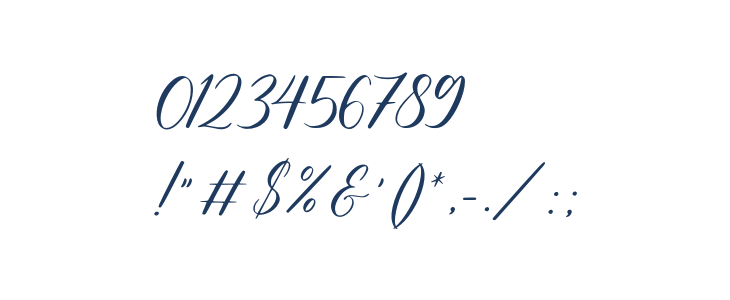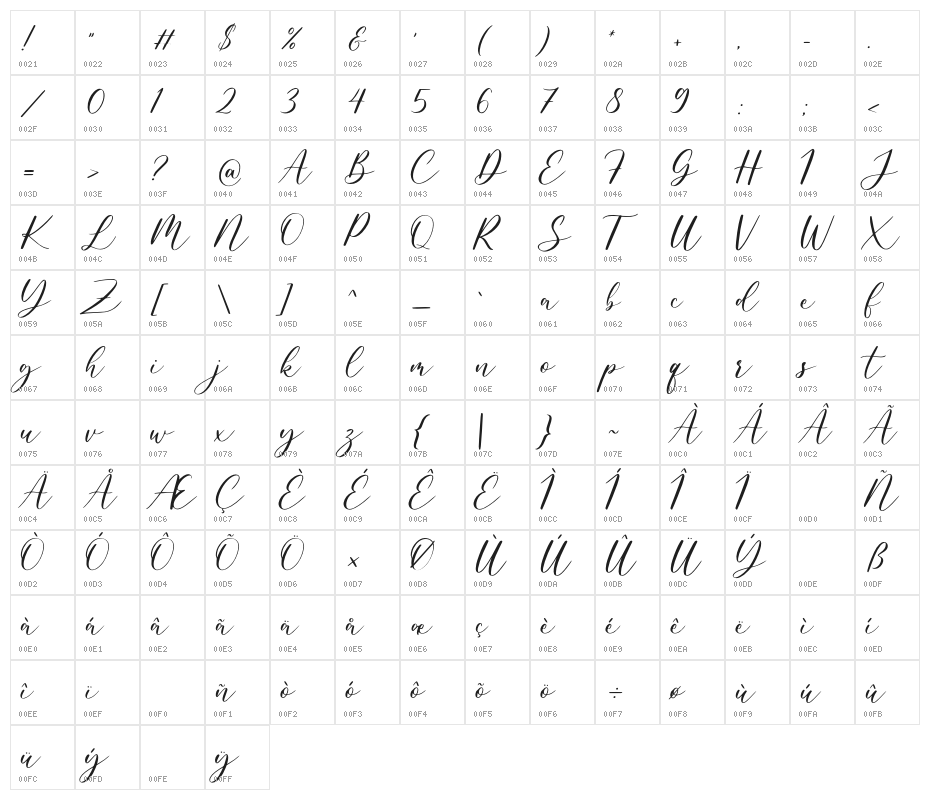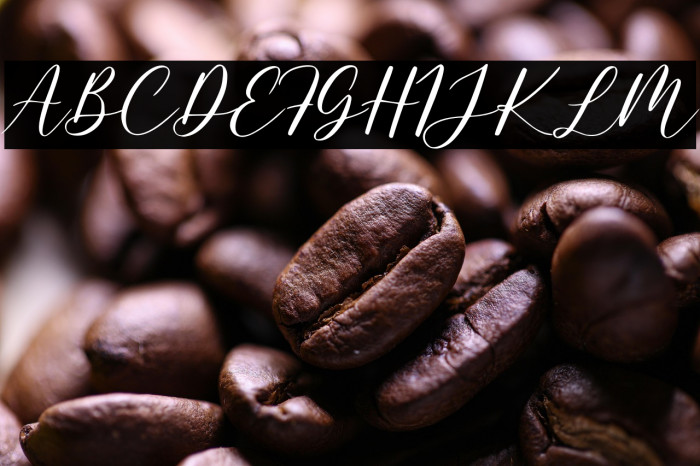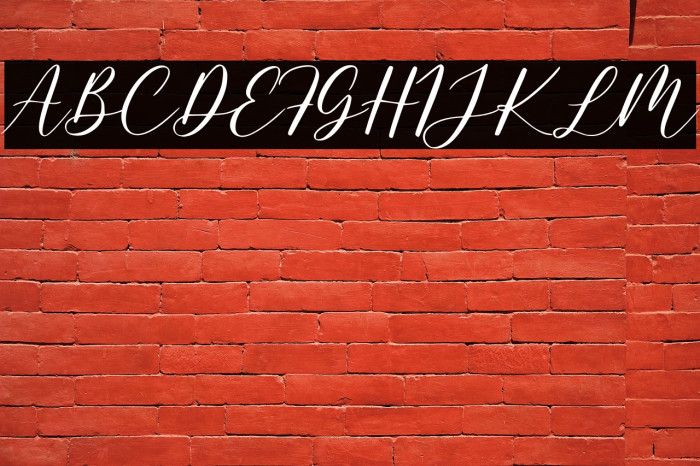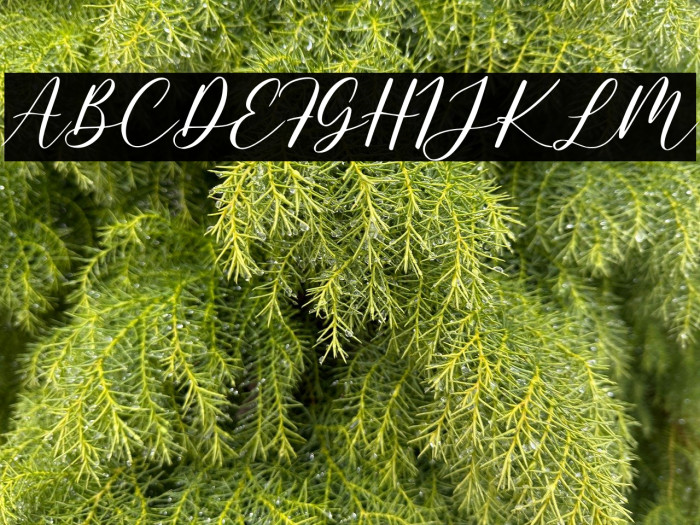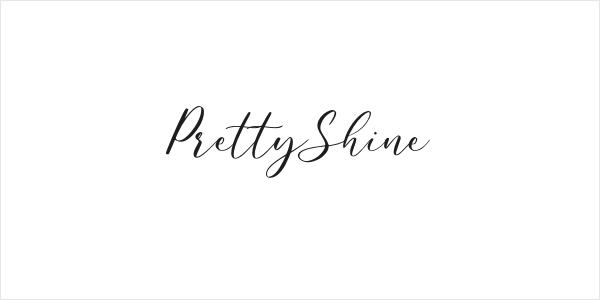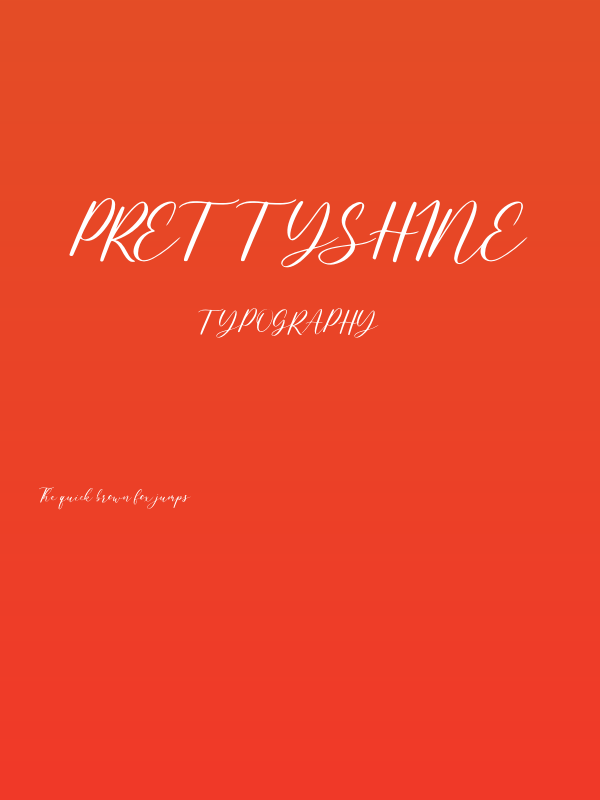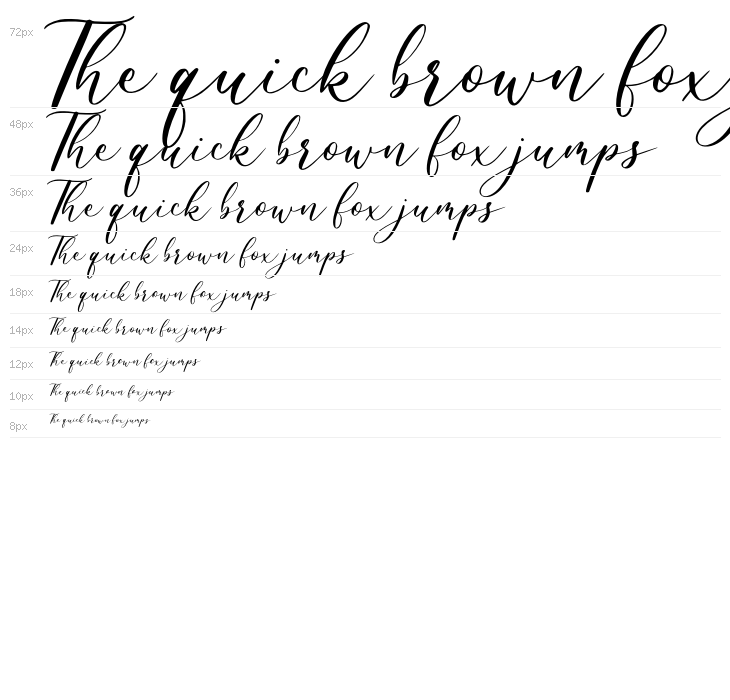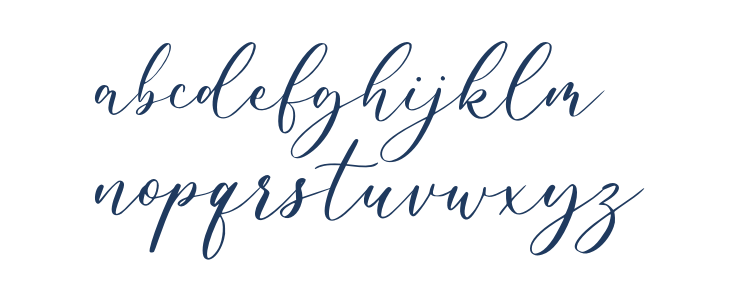
PrettyShine Font
PrettyShine Description
This elegant script font features a flowing, cursive style with smooth, connected strokes that create a sense of fluidity and grace. The uppercase letters are slightly more elaborate, with sweeping lines and delicate curves, while the lowercase letters maintain a consistent rhythm and balance. The numerals are designed to complement the letters, with similar curves and a cohesive style. The special characters are thoughtfully integrated, maintaining the overall aesthetic. This font exudes sophistication and is perfect for projects that require a touch of elegance and refinement.
| Overall Style | Elegant |
| Use Case | Logos, Invitations, Branding |
| Proposed Projects | Ideal for wedding invitations, elegant branding, greeting cards, and upscale packaging. |